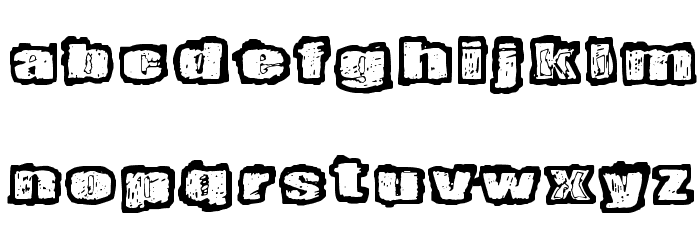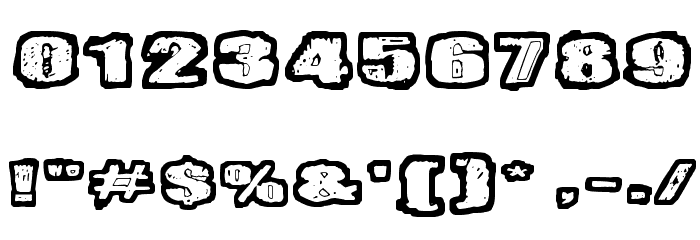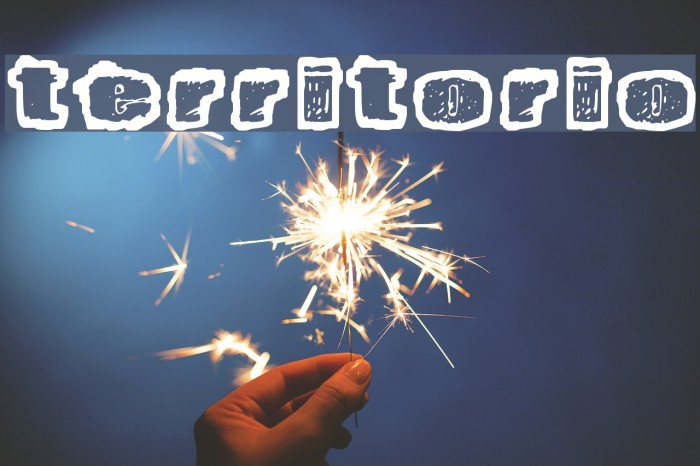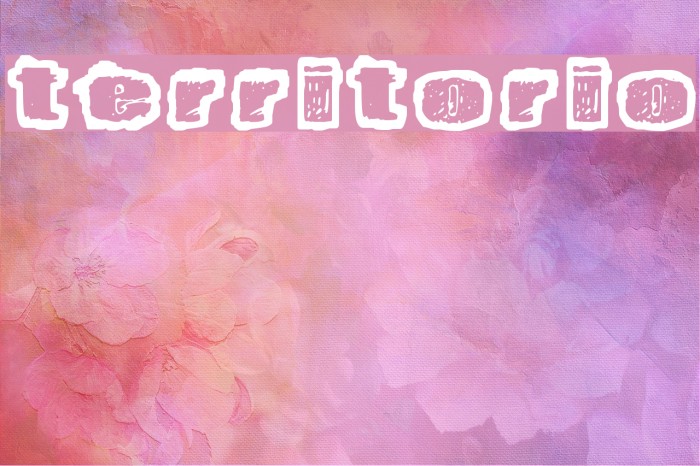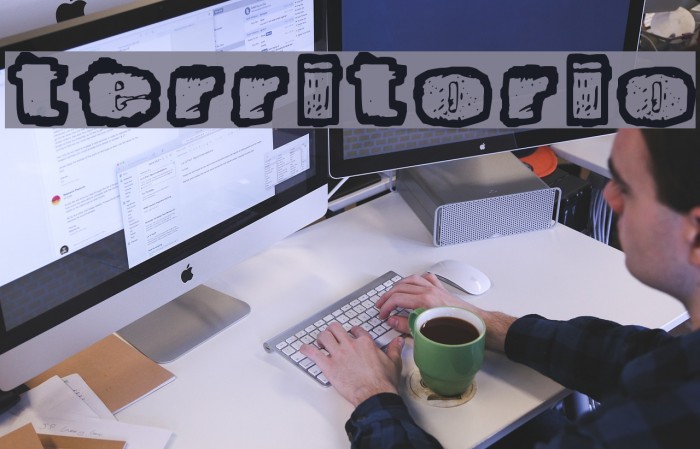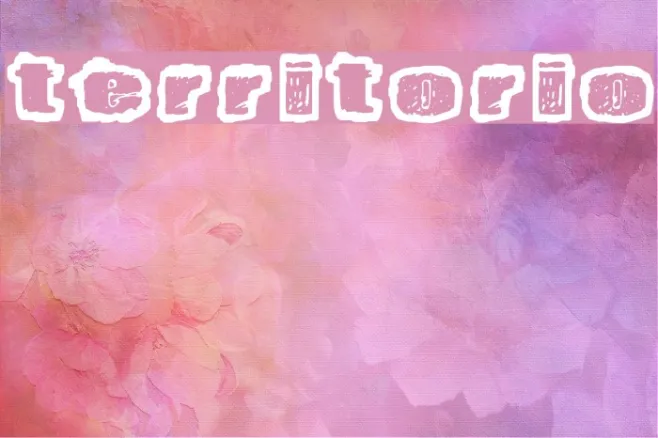
Territorio Font
This font features a bold, rugged style with a distressed, textured appearance. Each character is outlined with a thick black border, creating a striking contrast against the inner white space. The letters have a hand-drawn, graffiti-like quality, giving them an urban, edgy feel. The irregularities in the texture add a sense of movement and dynamism, making it ideal for projects that require a bold statement. The font maintains a consistent height across uppercase and lowercase letters, ensuring readability while still offering a unique aesthetic.
A bold, textured font with a distressed, graffiti-like style.
- Proposed Projects: Ideal for posters, album covers, streetwear branding, and urban-themed designs.
- Overall Style: Urban, Edgy, Dynamic